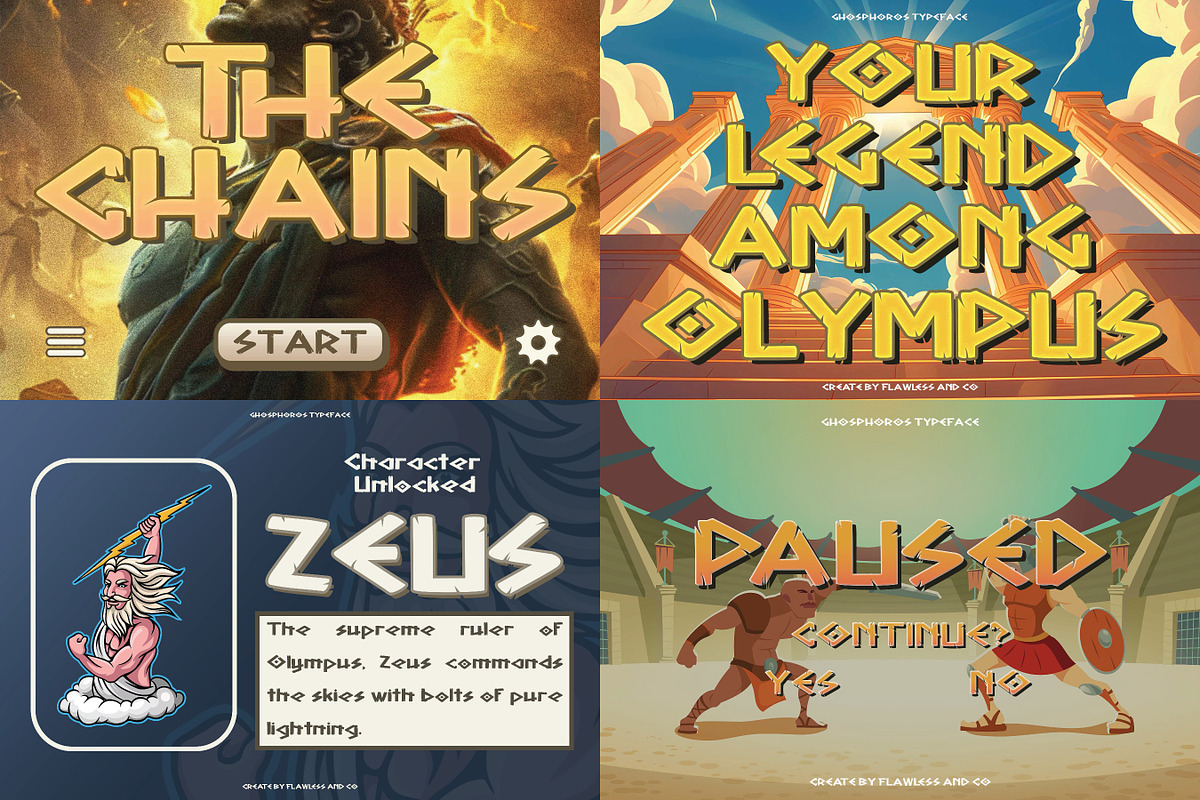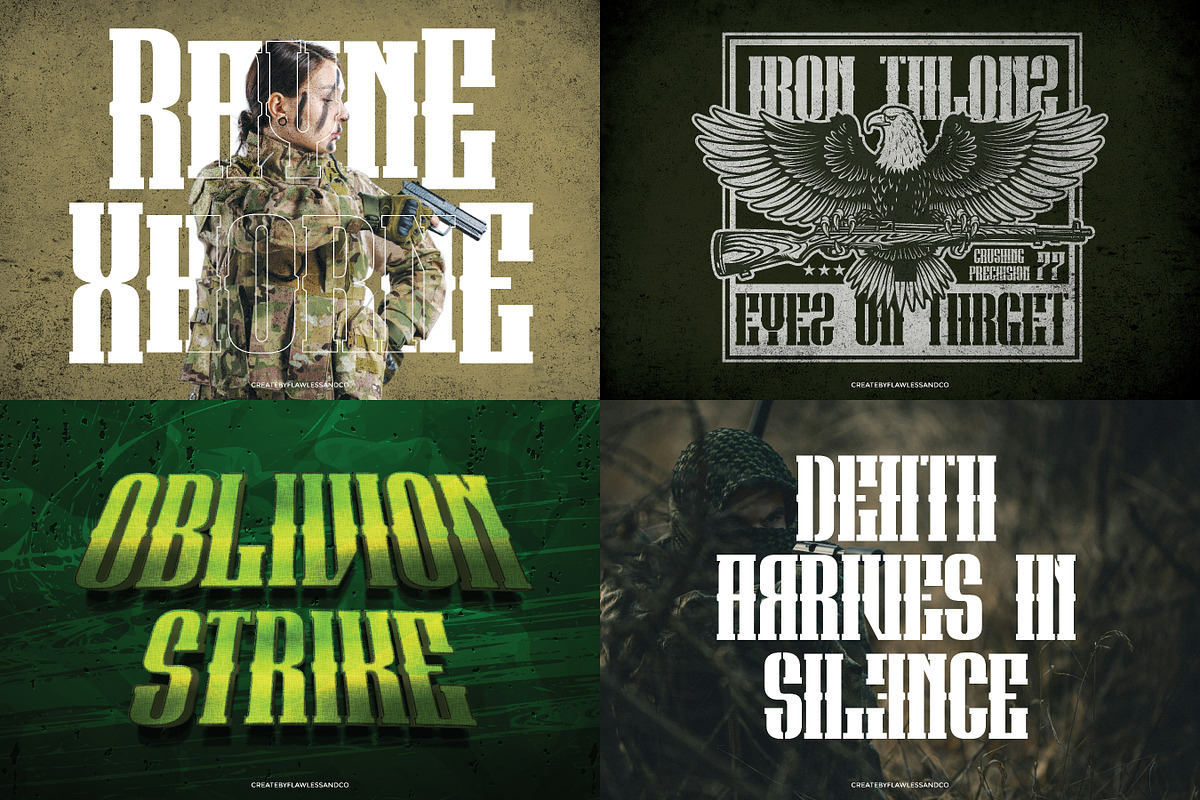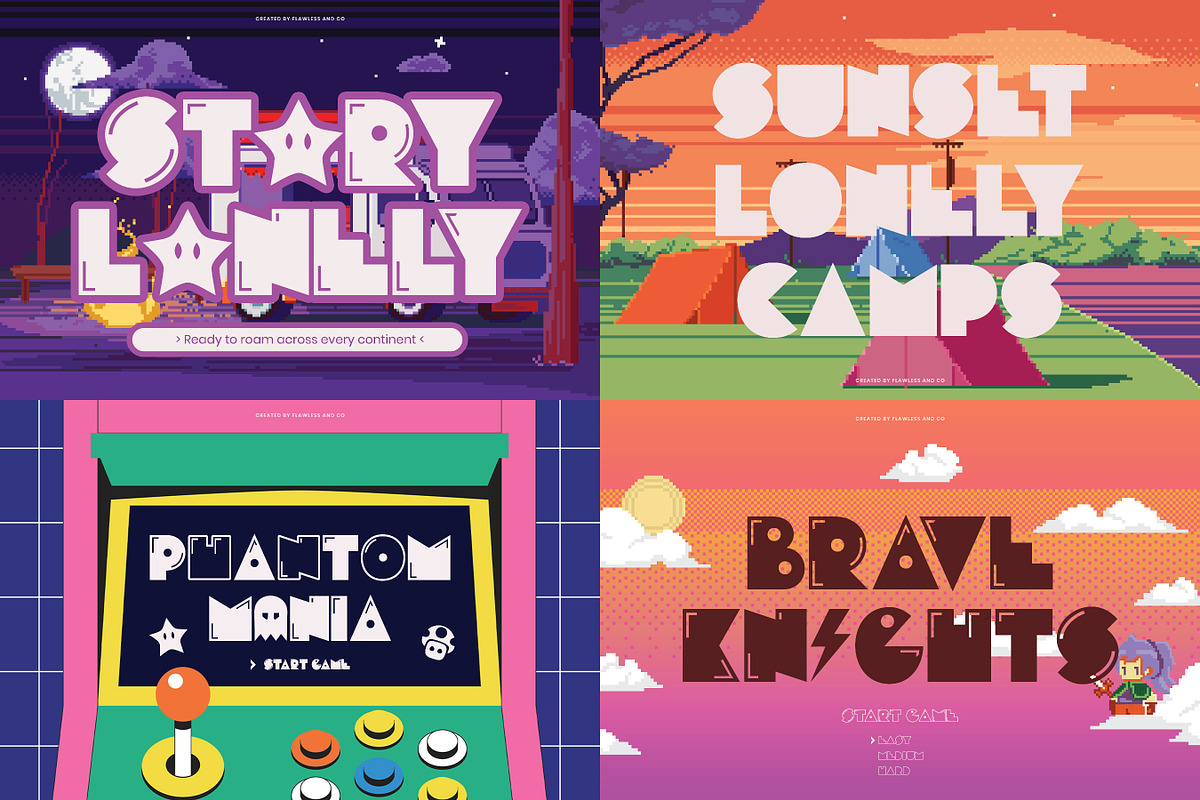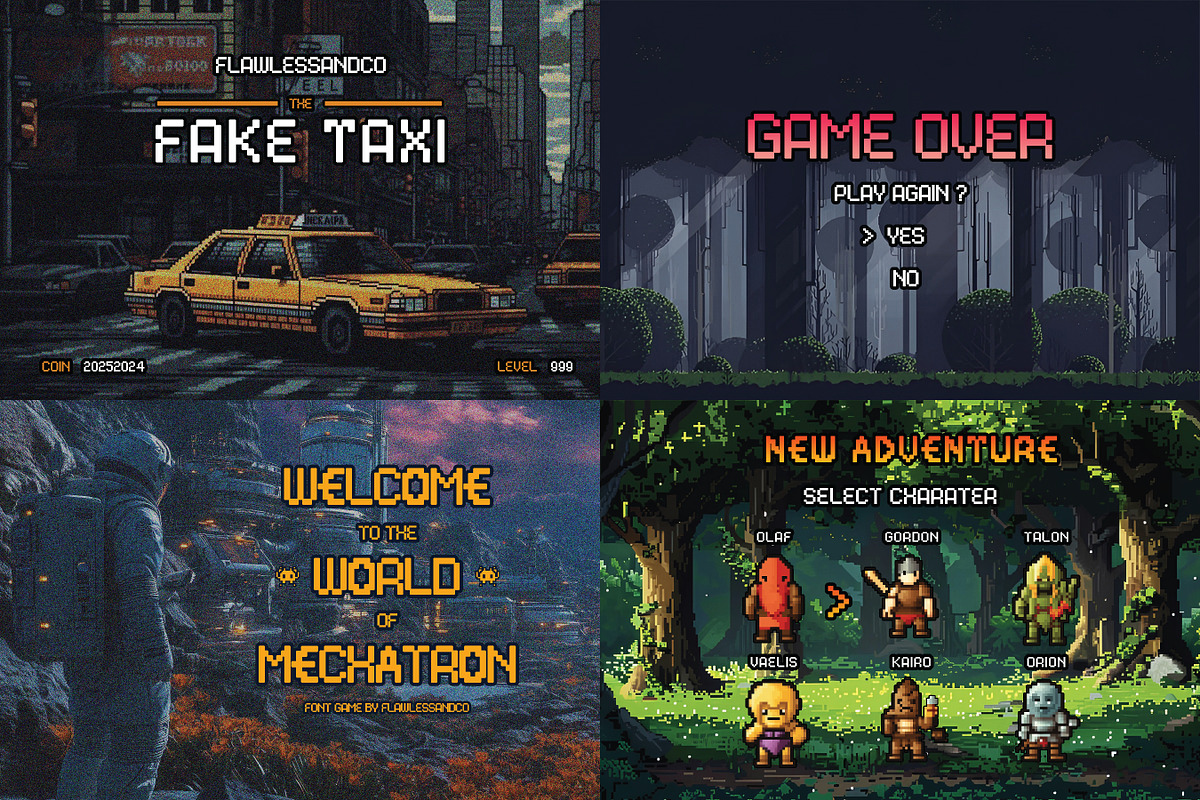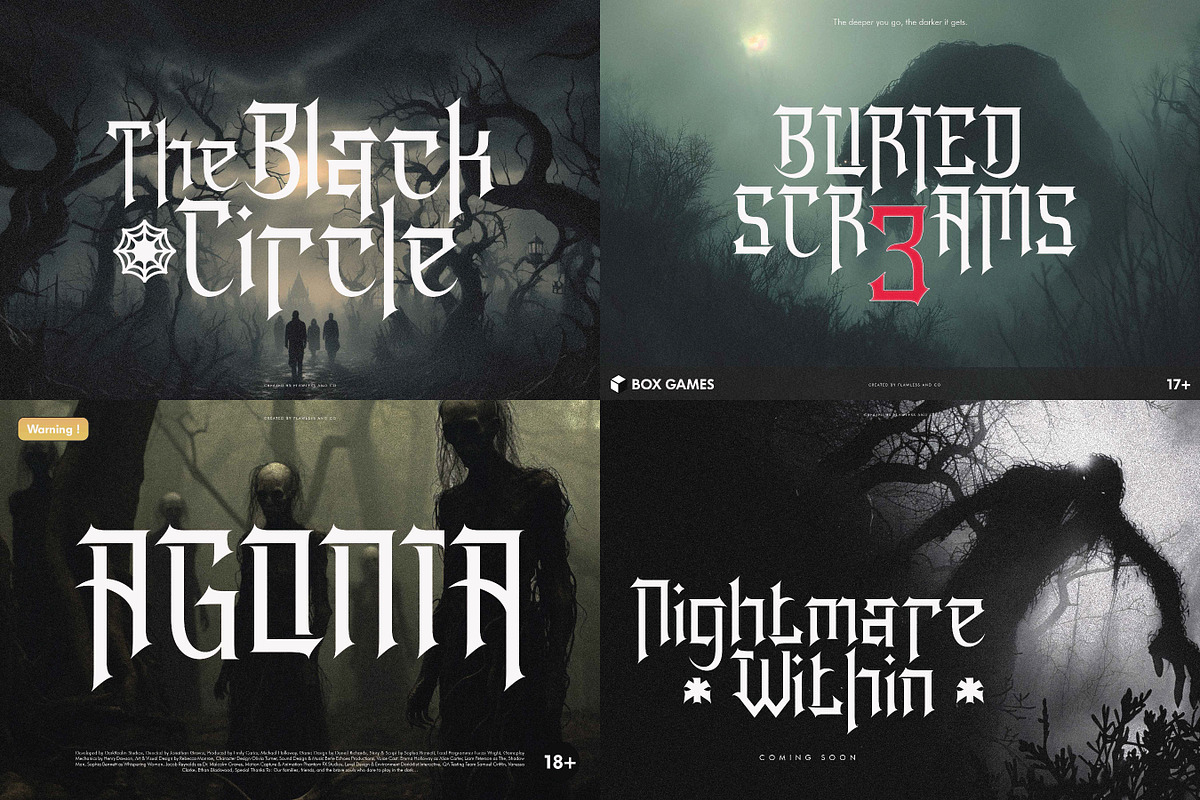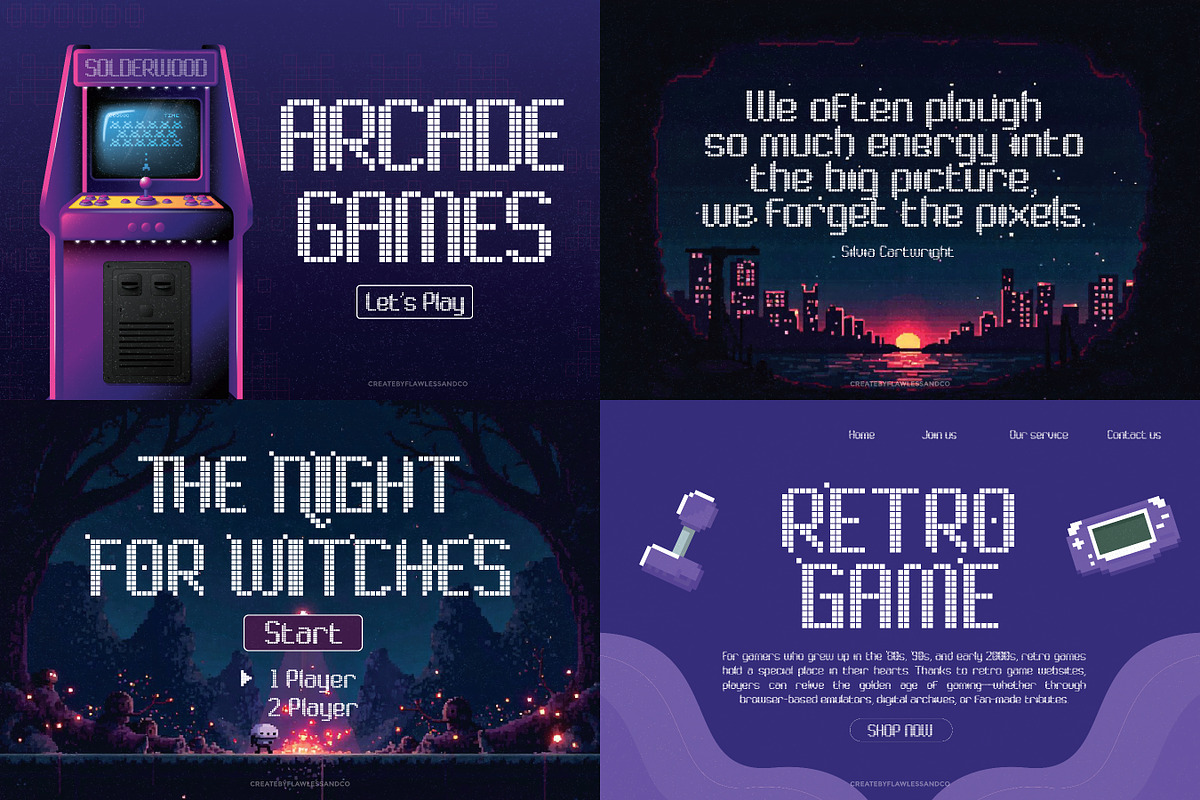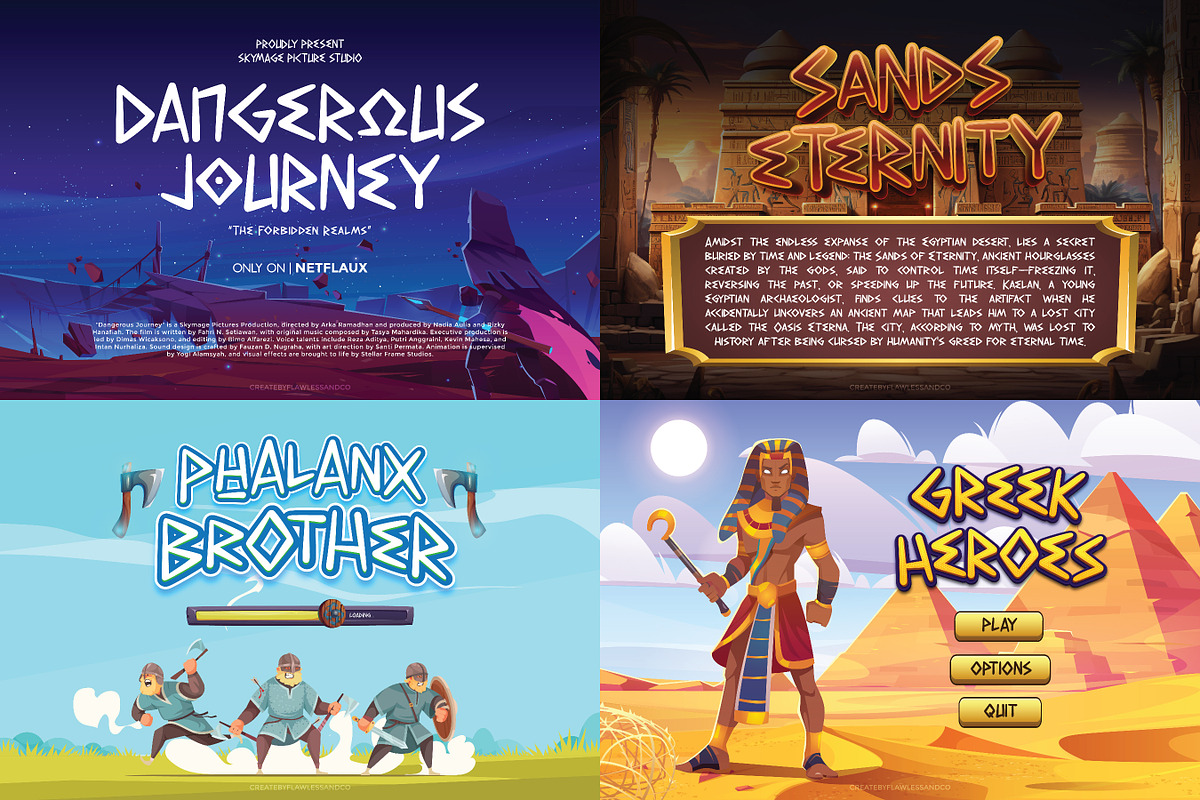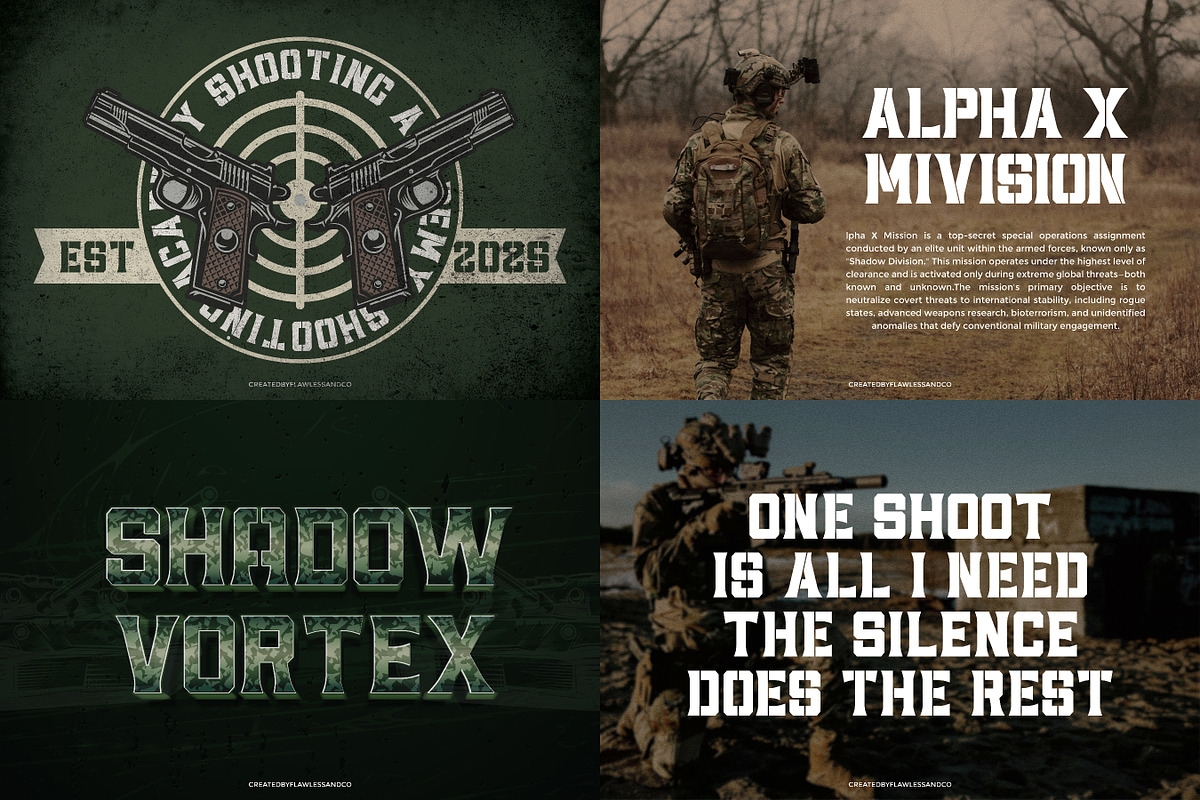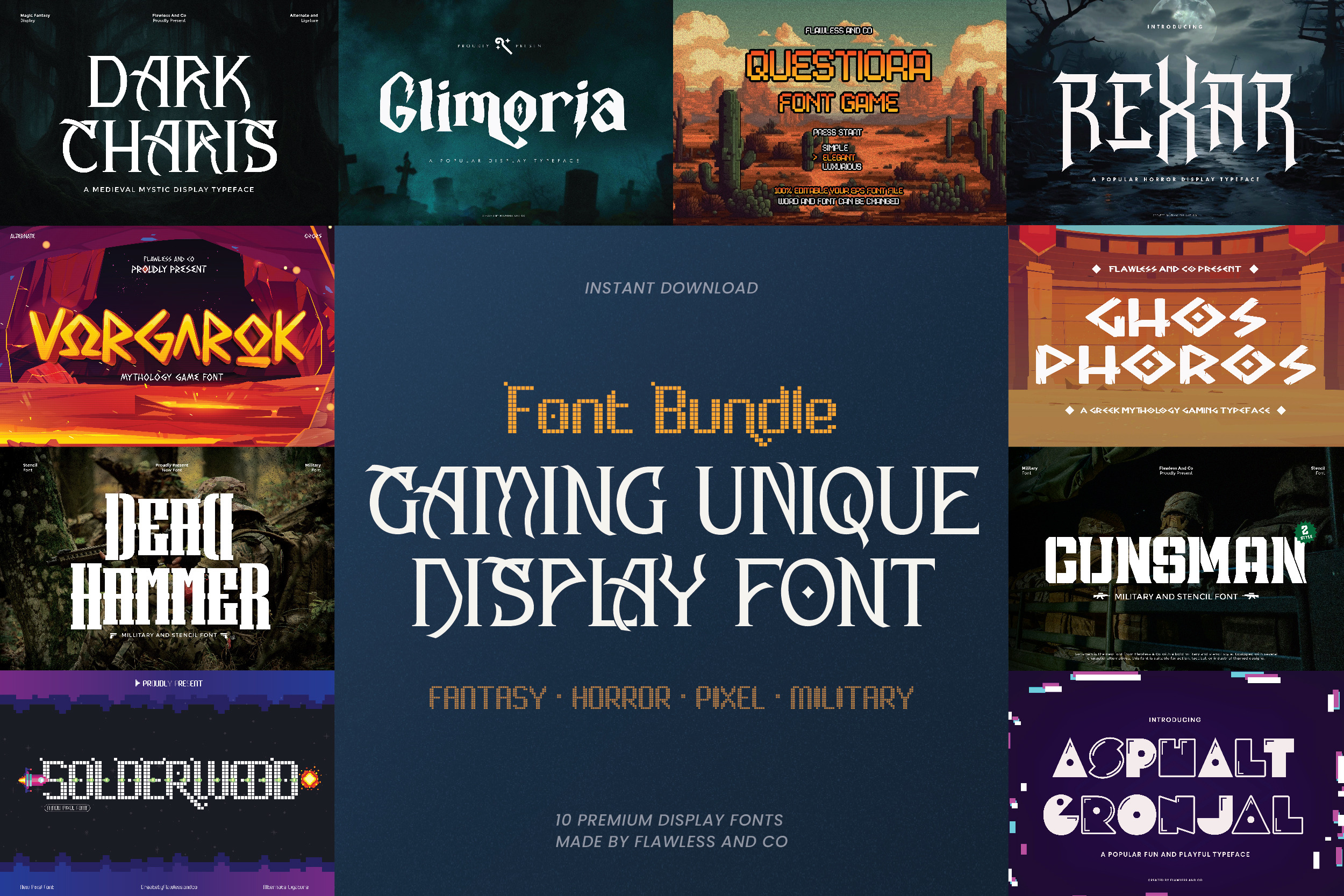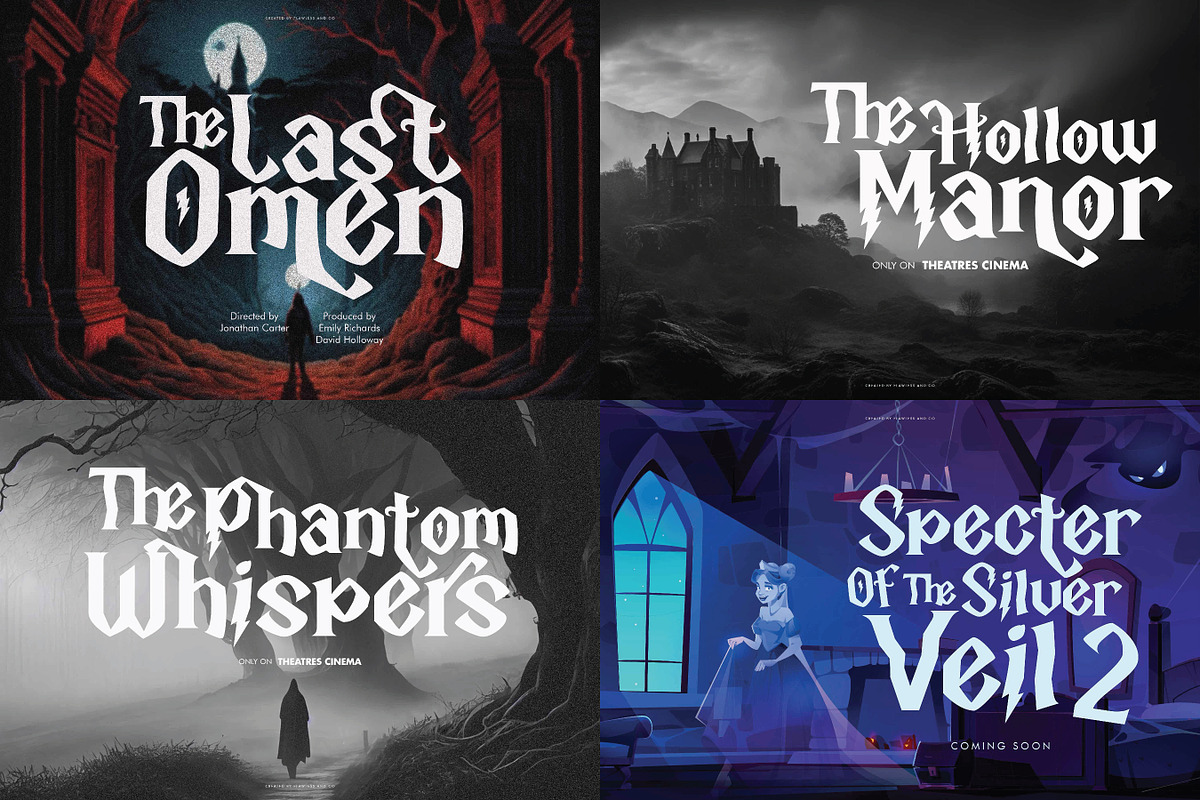
Gaming Unique Font Bundle
Gaming Unique Display Font Bundle is a powerful collection and creative display fonts designed to bring excitement, personality, and immersive energy to your projects. Featuring a wide variety of unique styles inspired by gaming, futuristic technology, fantasy adventures, arcade classics, and digital culture, this bundle gives you the flexibility to create eye-catching typography for countless creative applications. Each font is carefully crafted with its own distinctive character while maintaining a cohesive collection that works seamlessly across modern gaming and entertainment designs.
Whether you're designing game titles, esports branding, streaming graphics, or bold marketing materials, this bundle provides everything you need to create unforgettable visuals. From futuristic and cyber-inspired lettering to fantasy and action-themed display fonts, Gaming Unique Display Font Bundle helps your projects stand out with confidence, creativity, and a strong visual identity.
Including:
Alternates & Ligatures